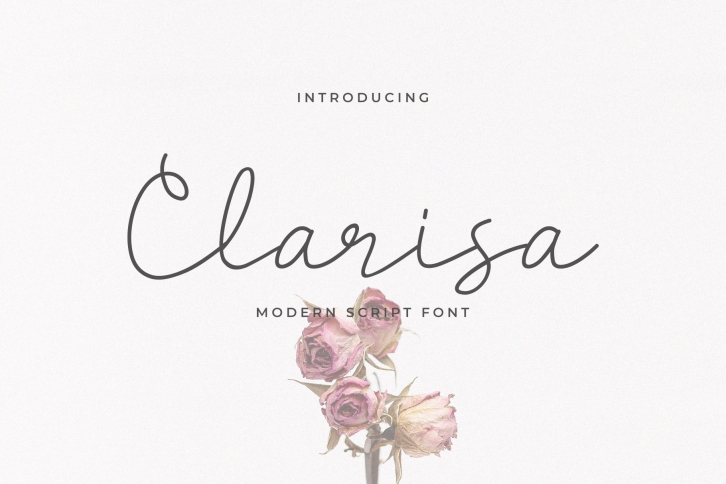
Clarisa Script is a gorgeous font that was realeased on September 11, 2019. The font can be used in many style contexts and design environments. Perfect for invitations, magazines, websites, logos, and more! It was designed by Heinzel Std and the file size is 7.70 MB. Thanks for checking out this font!